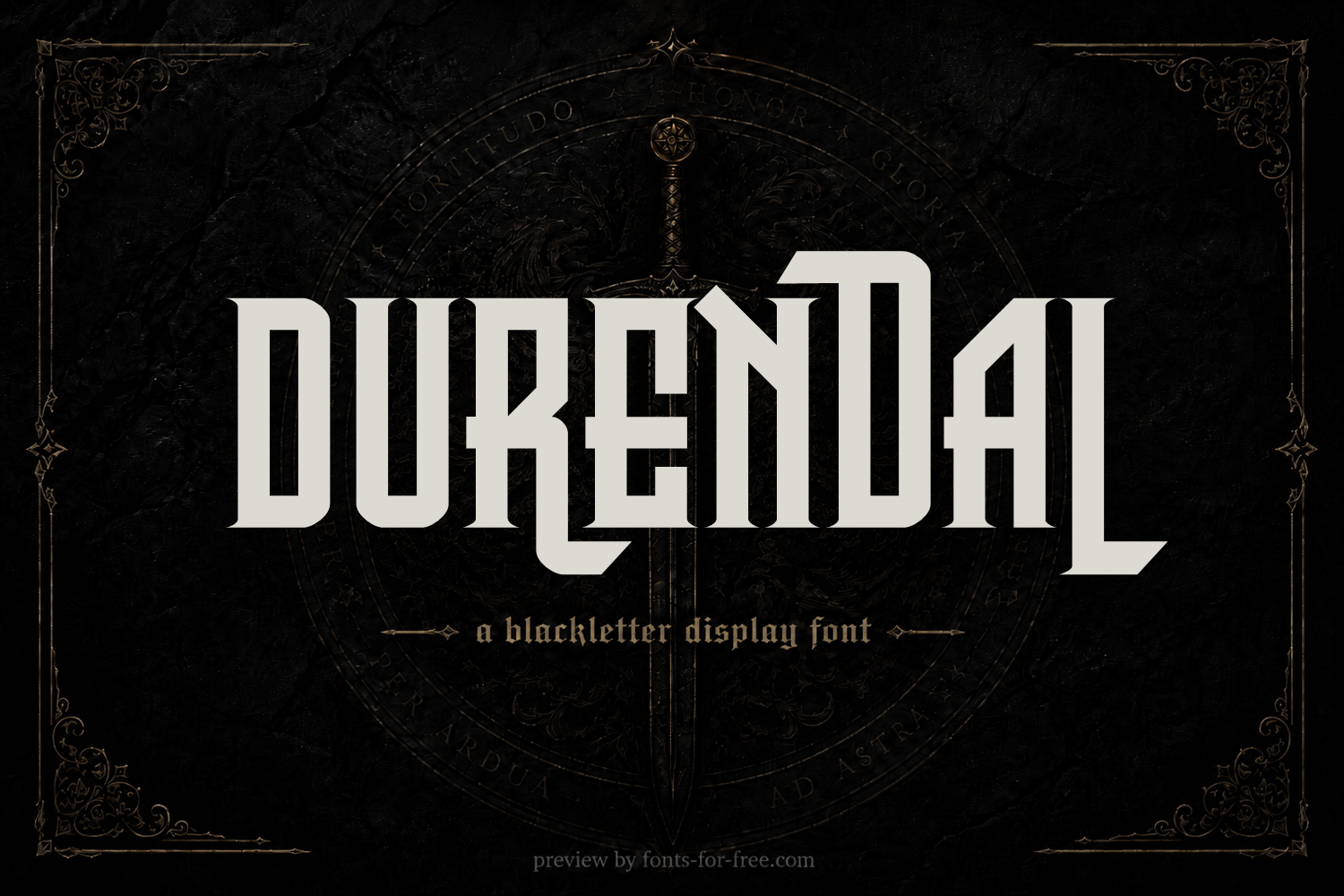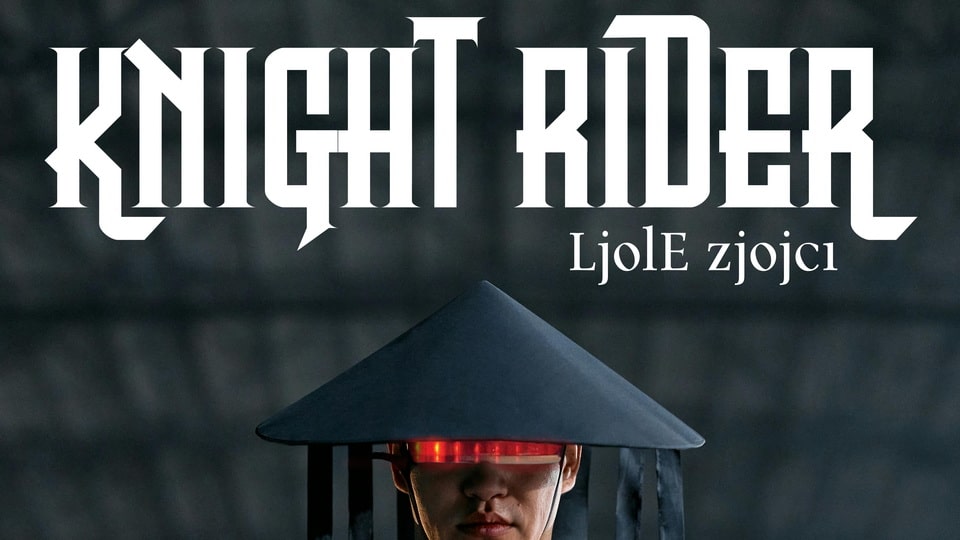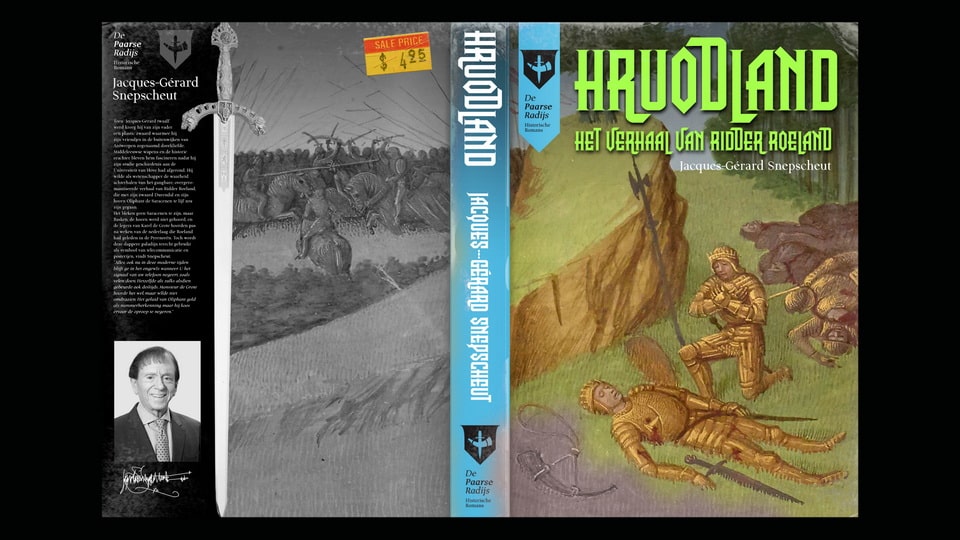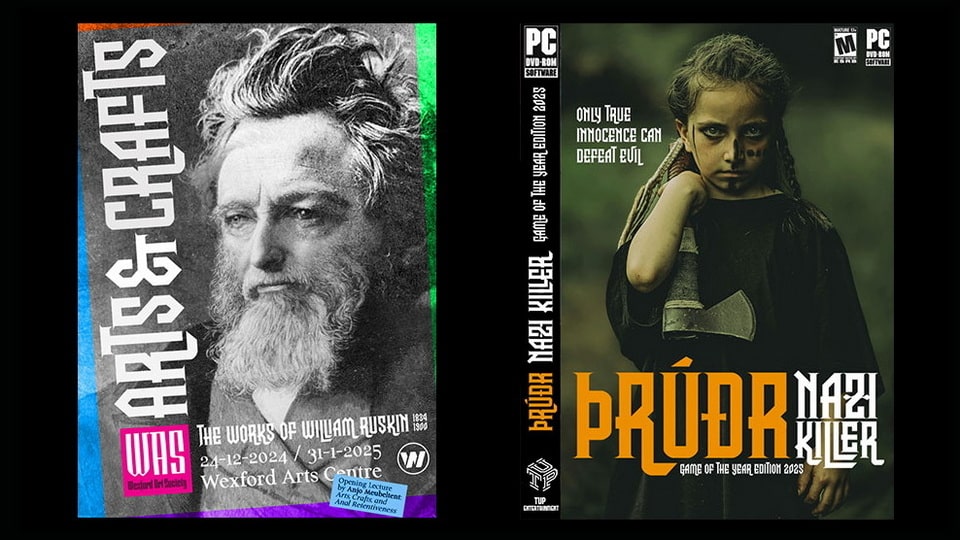
Durendal and Oliphant
Durendal and Oliphant is a blackletter-inspired display font created by Tup Wanders and licensed under the SIL Open Font License 1.1. Its letterforms are tall, heavy, and highly decorative, combining angular medieval shapes with blocky slab-like construction. The design has strong vertical rhythm, sharp cuts, split interior spaces, and dramatic capitals that give the typeface a dark fantasy and heraldic mood. Readability is strongest at large sizes, where its dense forms and narrow spacing can be clearly seen. It suits posters, game titles, book covers, album artwork, event graphics, labels, and branding that needs a gothic or medieval tone.